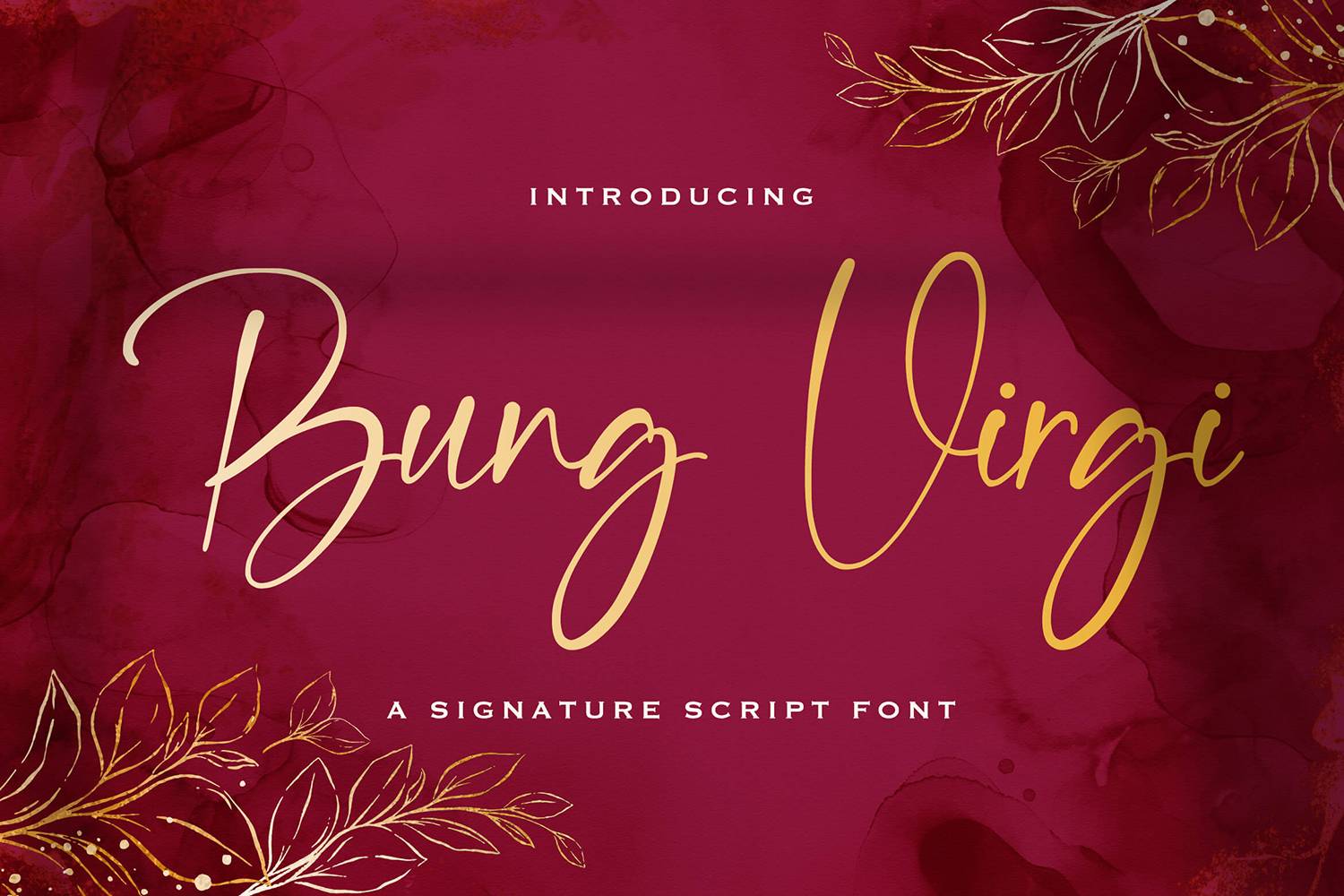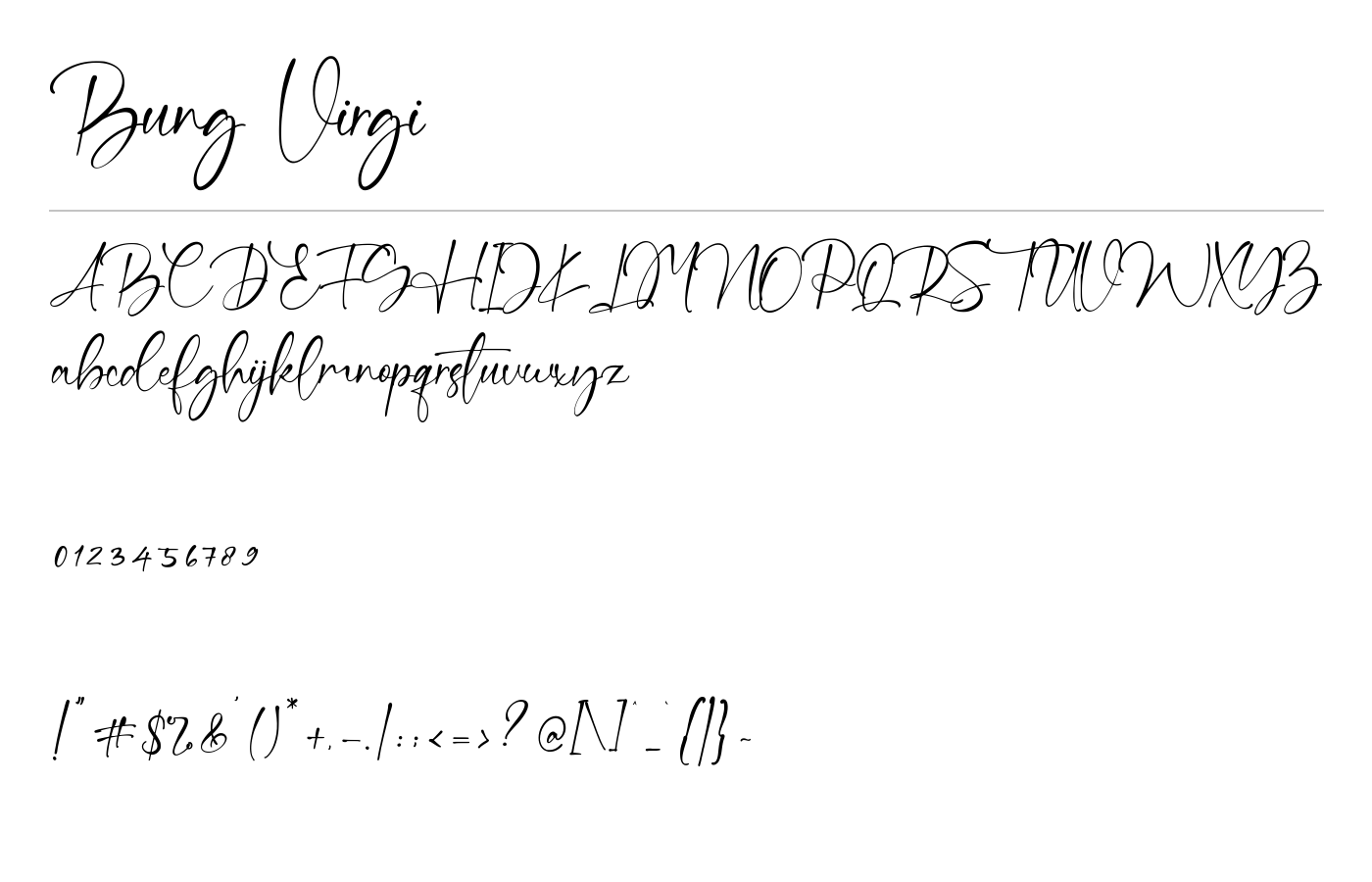
Bung Virgi is an elegant, light script font featuring flowing, hand-drawn letterforms with a delicate and airy feel. Its tall, slender characters with graceful loops and subtle variations create a modern yet personal and artistic look, making it ideal for invitations, branding, and creative projects that seek a sophisticated and intimate touch. This font works beautifully where a stylish, refined handwritten style is needed to add personality and charm.
Bung Virgi Font
About Bung Virgi Font
| Font family | Bung Virgi Font |